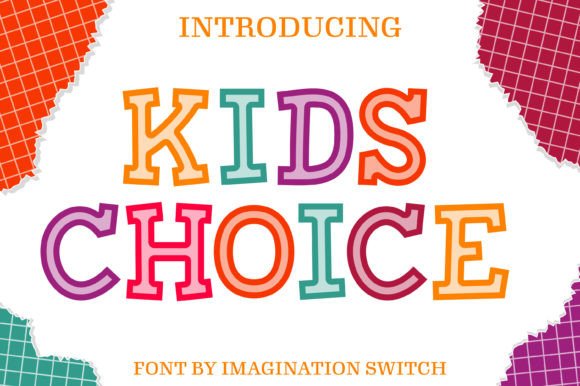
Unleash your imagination and delve into the vibrant world of Kids Choice Font, a captivating creation that weaves color and creativity into every character. This remarkable font family, brought to life by Imagination Switch, is a symphony of visual delight, transforming your designs into masterpieces that captivate and inspire.
Embark on a journey of self-expression with Kids Choice Font, where each letter, number, and symbol is meticulously designed with a unique color touch. This beautiful font offers an extensive range of possibilities, inviting you to create logos, posters, invitations, and more with effortless style. Whether you're a seasoned designer or just starting, Kids Choice Font is the perfect tool to bring your vision to life.
Experience the versatility of Kids Choice Font as it seamlessly adapts to various design projects, from print and web designs to promotional materials and beyond. Its exceptional legibility ensures that your message shines through with clarity, while its captivating colors add a touch of whimsy and enchantment.
Don't limit your creativity to black and white; embrace the full spectrum of colors with Kids Choice Font. The color version of this font opens up endless possibilities for unique and eye-catching designs, compatible with design programs such as PhotoShop, Illustrator, Silhouette, and Inkscape. Unleash your artistry and let your imagination soar as you explore the limitless potential of this dynamic font.